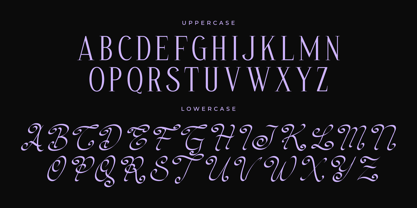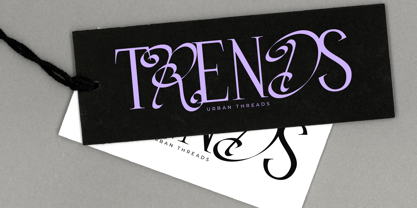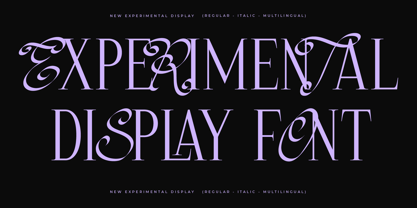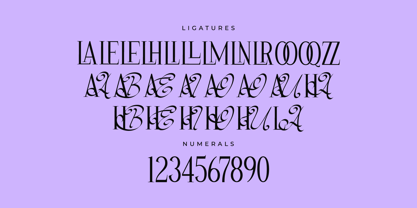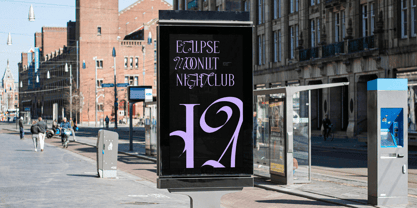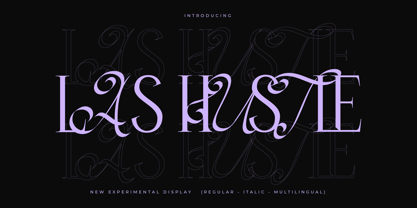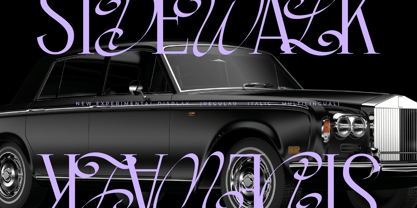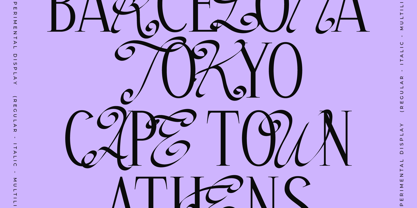
Las Hustle
by Letterena Studios
The Las Hustle Font Family was designed by Heru Utama Putra and published by Letterena Studios. Las Hustle contains 1 styles.
Proudly present Las Hustle Typeface , created by Storytype,
A serif modern and classic typeface that has own unique style & modern look.
This typeface is perfect for an elegant & luxury logo, book or movie title design, fashion brand, magazine, clothes, lettering, quotes, and so much more.